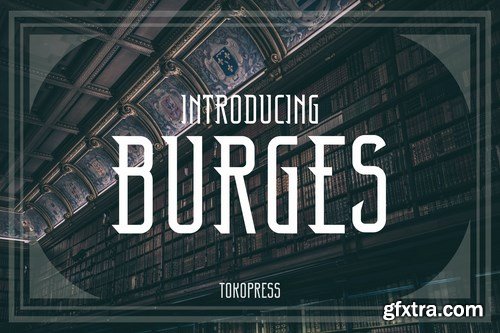
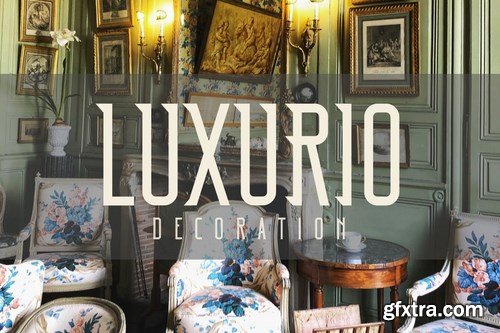
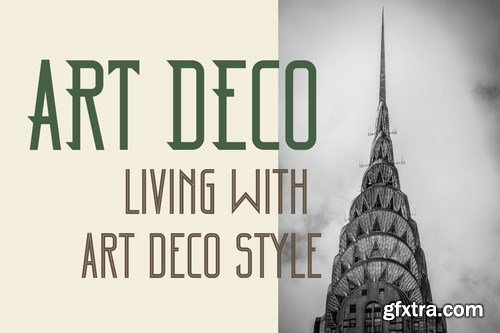
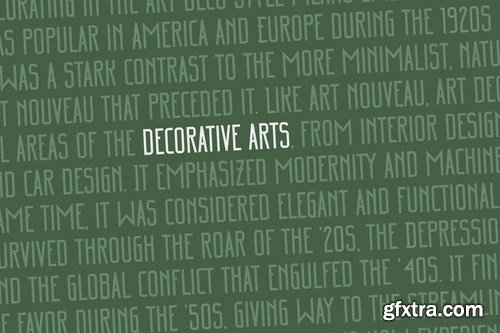
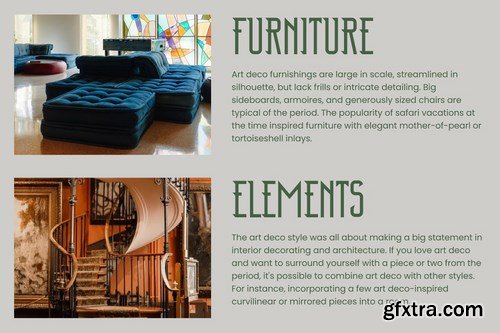
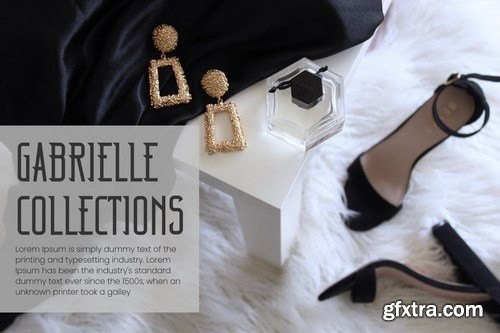
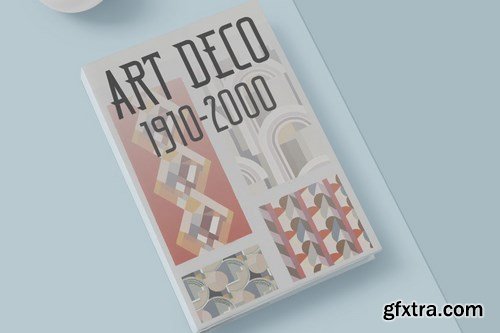
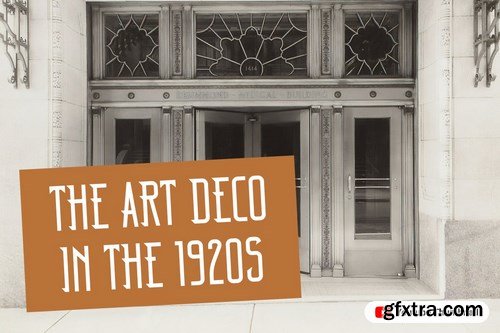
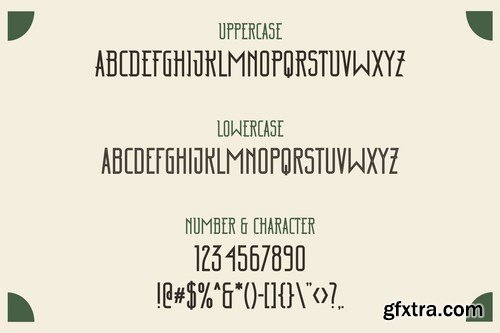
Taking an art deco look, Burges is all about classic, with solid uppercase, and inline lowercase, it bring a lot vintage feels in it.
Suit perfectly for high-end market audiences, poster, movie title, classic restaurant/ cafe menu, magazine, youtube covers, youtube thumbnails, social media page covers and so on...